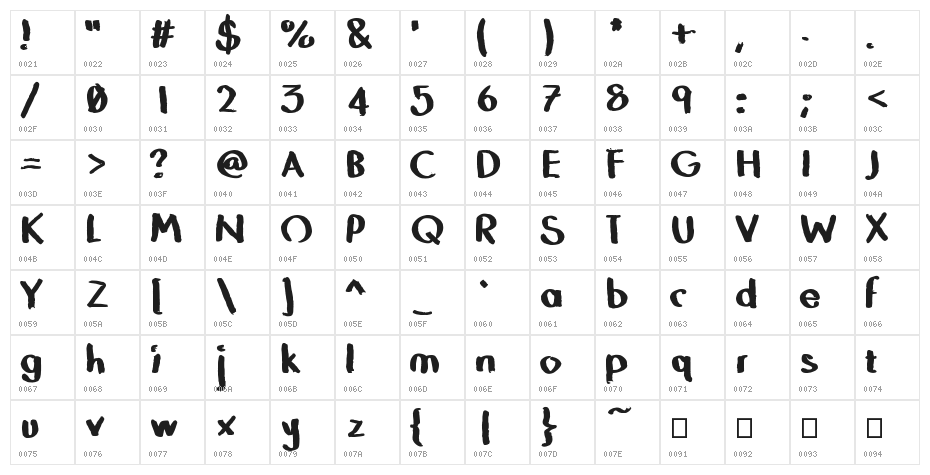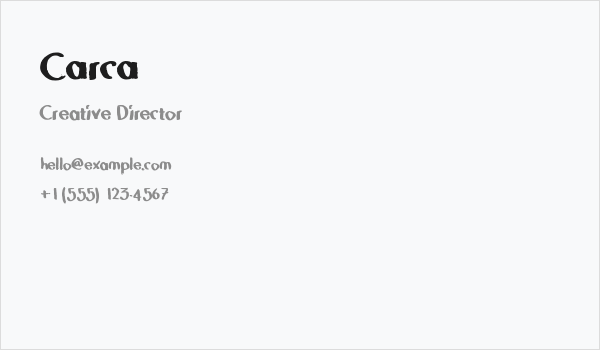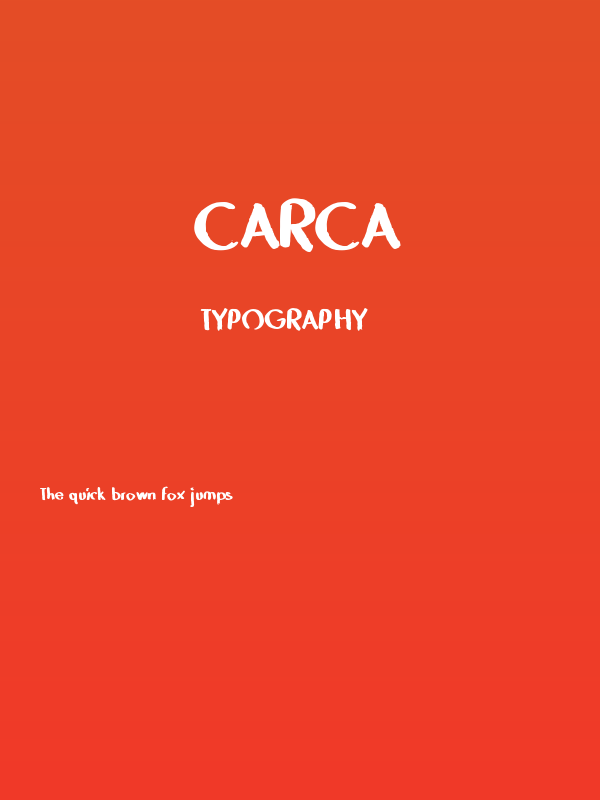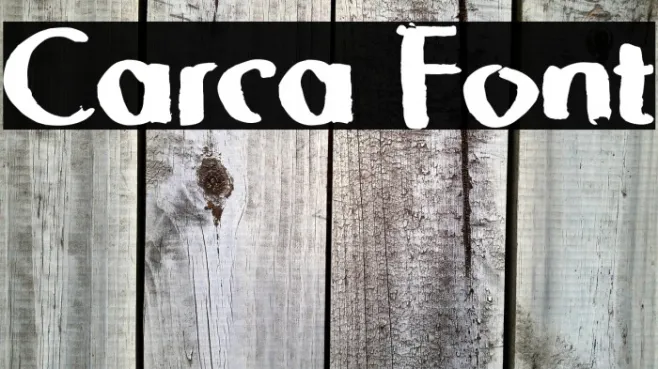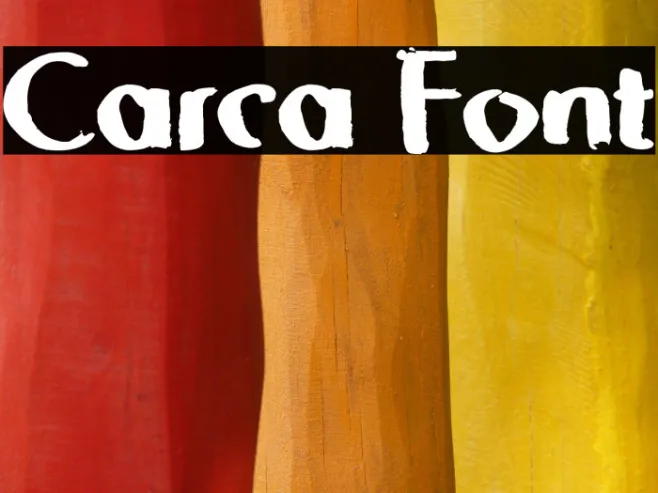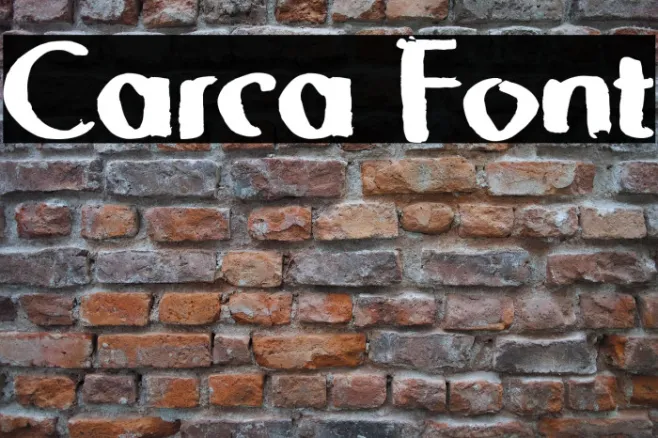
Carca Font
Carca Description
This font exudes a bold and expressive style, characterized by its brush-like strokes and dynamic appearance. The letters have a hand-painted quality, giving them an organic and artistic feel. The uppercase and lowercase letters maintain a consistent thickness, while the numerals and special characters follow the same expressive style. The overall look is both playful and impactful, making it suitable for creative and informal applications. The font's unique character is emphasized by its irregular edges and varying stroke widths, adding to its handcrafted charm.
| Overall Style | Artistic, Handcrafted |
| Proposed Projects | Ideal for posters, branding, packaging, and creative projects that require a bold and artistic touch. |